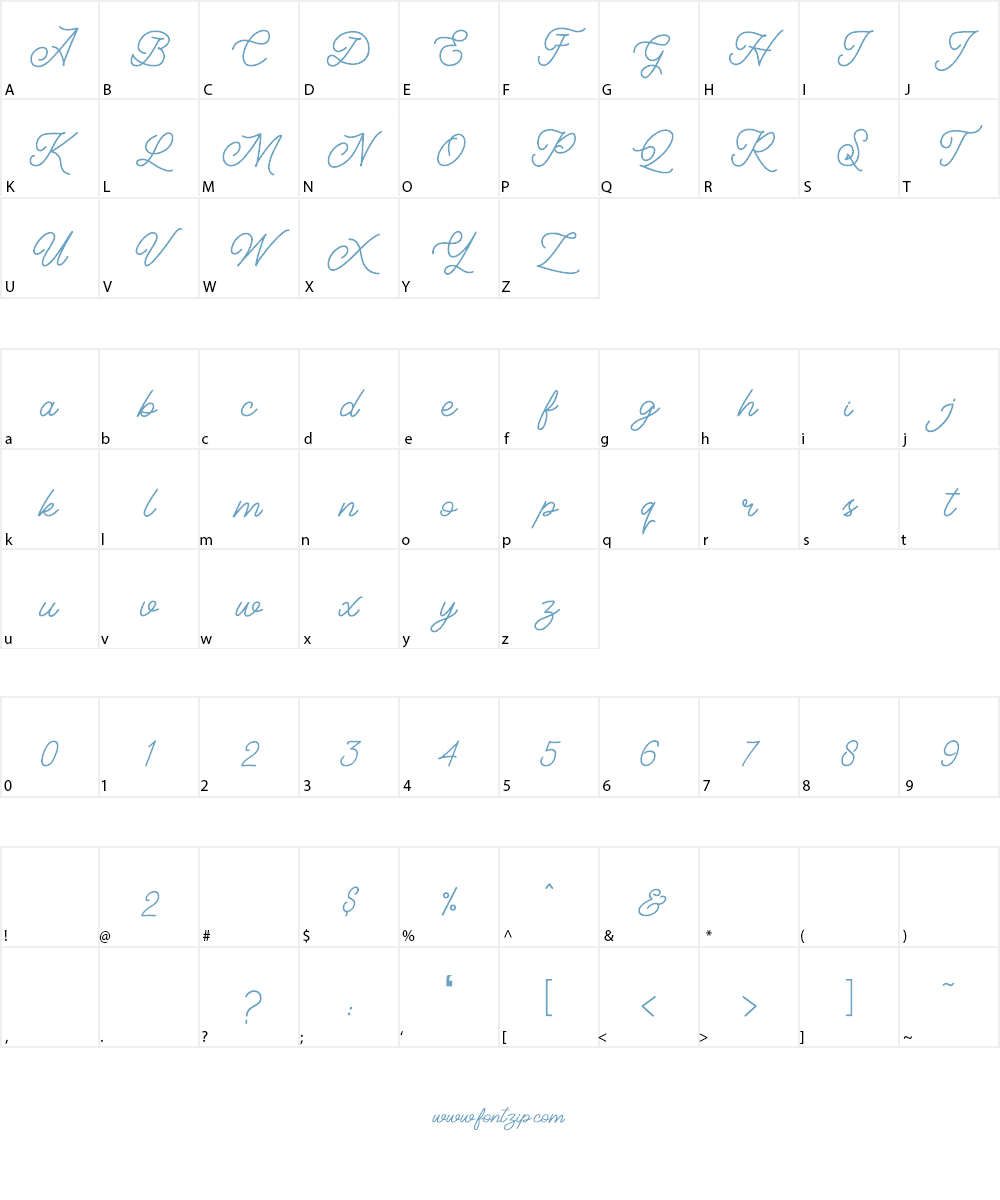
Say Hello Guy's Introducing Classical - Monoline Script made with naturally handwritten.it's Best monoline typeface. Classical font best use for Poster,Wedding, Branding, Logotype and Quotes.
Classical Features : Beautiful ligatures PUA encoded Multilingual Support Numbering & Punctuation